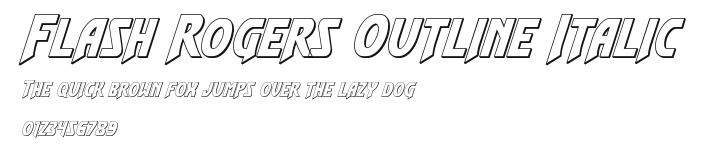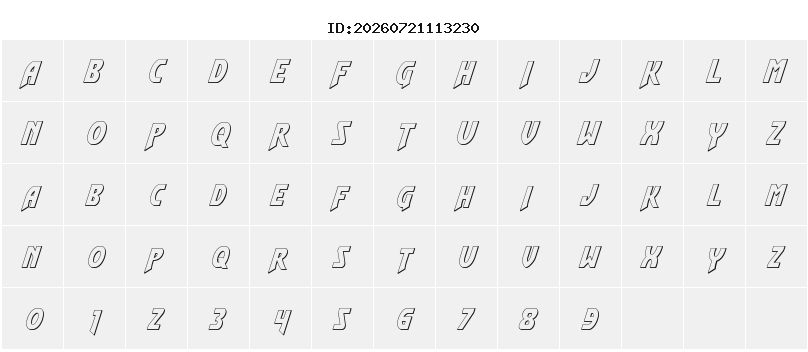
• Font Name: Flash Rogers Outline Italic
• Font Style: Outline Italic
• Full Font Name: Flash Rogers Outline Italic
• PostScript Name: FlashRogersOutlineItalic
About Flash Rogers Outline Italic.ttf
Flash Rogers Outline Italic.ttf is a modern, elegant sans-serif font designed for ultimate readability and visual harmony. Perfect for branding, headlines, web design, and print materials.